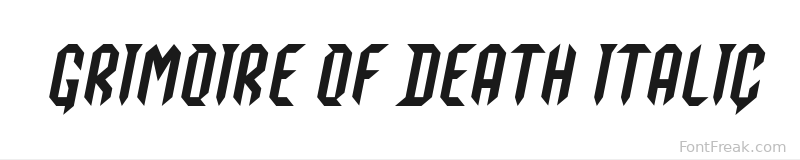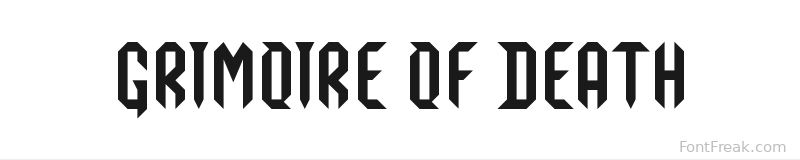
Grimoire Of Death
Grimoire Of Death Italic
Grimoire Of Death by GGBot is a striking display font that seamlessly blends the realms of the eerie and the elegant. As a decorative typeface, it boasts a unique aesthetic that captures attention with its bold, angular forms and dramatic flair. The font features a medium to heavy stroke weight, delivering a robust presence that commands attention, while the high contrast between thick and thin lines adds depth and intrigue to its visual character. With its meticulous spacing, Grimoire Of Death ensures legibility even at larger sizes, making it an ideal choice for impactful designs.
This font is perfect for a variety of creative applications. Its gothic style lends itself beautifully to Halloween-themed events, making it an excellent choice for spooky party invitations or haunted house promotions. Additionally, Grimoire Of Death can elevate movie posters, particularly for horror or fantasy genres, where its distinctive flair can enhance the mood and theme. Small business owners in the gothic or alternative fashion sector will find it suitable for branding, while content creators can use it for eye-catching social media graphics or YouTube thumbnails that demand a darker aesthetic.
The target audience for this font includes graphic designers looking to add unique touches to their projects, as well as small business owners wanting to create memorable branding. Content creators also stand to benefit from its visually arresting style, making their work stand out in a crowded digital landscape.
What sets Grimoire Of Death apart is its ability to convey a sense of mystique and allure, making it not just a typeface, but a statement. For those seeking a font that embodies both artistry and character, the Grimoire Of Death font free download is an opportunity not to be missed.